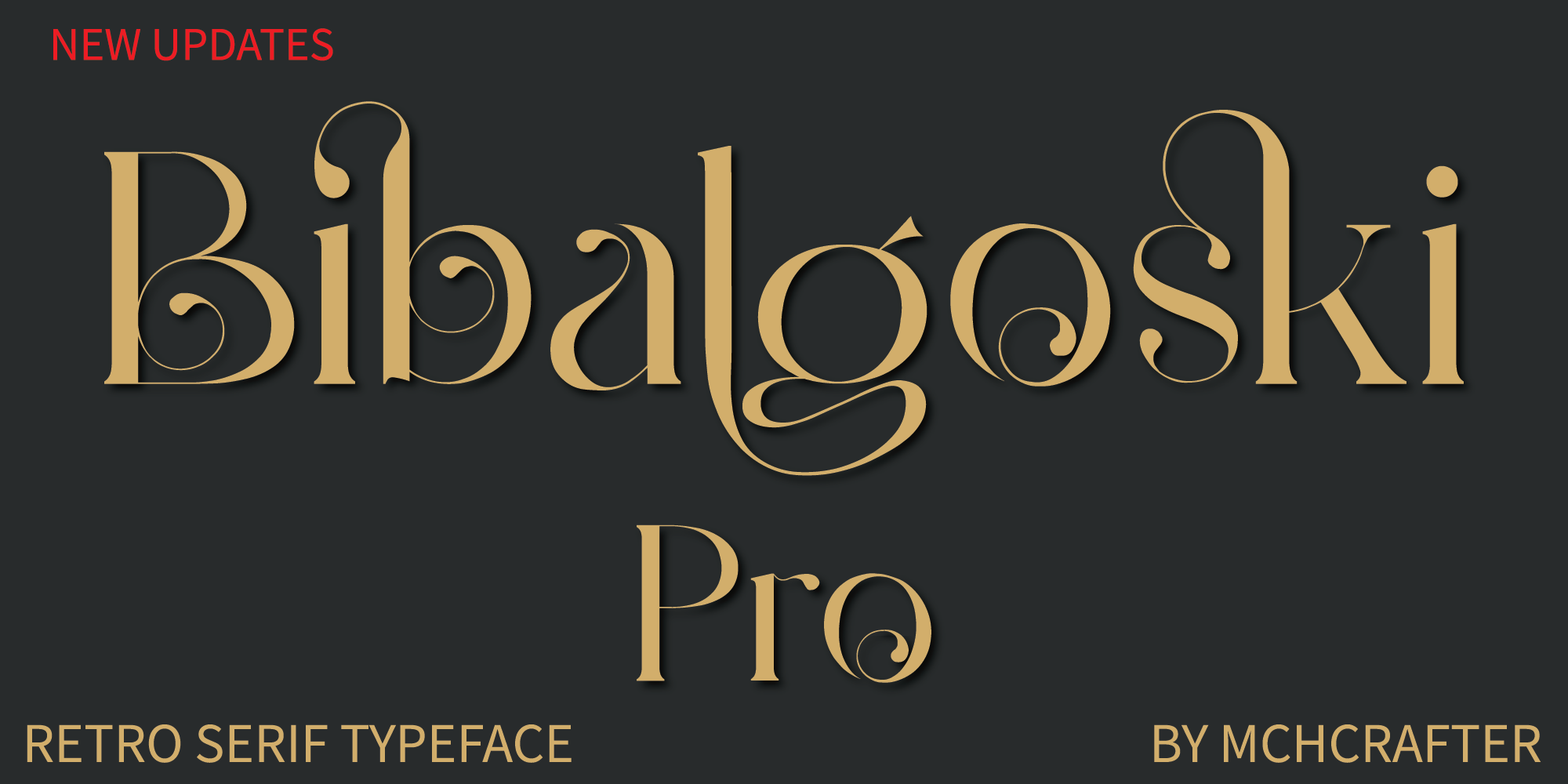
Bibalgoski Pro Font Free Download – Professional and Stylish Typeface for Modern Designs
Looking for a professional and stylish font that enhances your modern design projects? Bibalgoski Pro Font Free Download offers a sleek, contemporary style ideal for branding, editorial layouts, websites, and presentations. Its clean lines and balanced proportions make your content easy to read while adding a touch of sophistication.
Bibalgoski Pro is perfect for designers seeking a versatile font that performs well across both digital and print media. Whether you’re crafting logos, headlines, or body text, this font provides clarity and elegance that elevates your message.
Upgrade your typography with Bibalgoski Pro — a font that blends professionalism with modern flair for outstanding design impact.